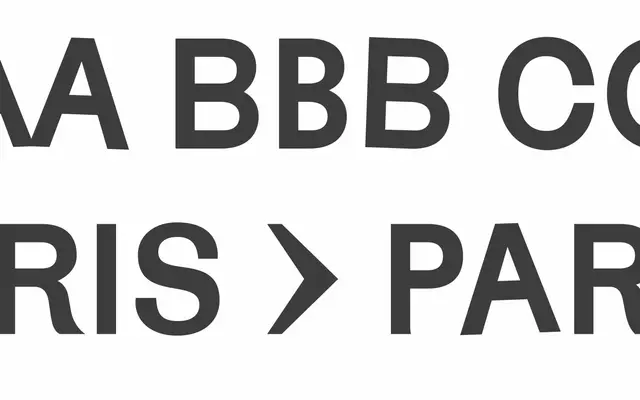
Karrik
Phantom Foundry · Jean-Baptiste Morizot, Lucas Le Bihan · 2020
An intentionally flawed grotesque designed for a ghost-themed magazine, built around the charm of forgotten early sans-serifs and deliberate optical miscorrections.
Designed by Jean-Baptiste Morizot and Lucas Le Bihan for Cercle magazine's 2020 ghost-themed issue, Karrik evokes abandoned places and discontinued electric station signage through wilful design flaws: uneven letter widths, heavy stem joins left uncorrected, and weight distribution that runs against conventional practice. A stylistic set (SS01) introduces chaotic alternate uppercase letters for added vernacular disorder. Released as a libre font through the Velvetyne foundry, it reads coherently at body size despite its display-oriented irregularities.
Karrik is deliberately modelled on early, clumsy grotesque sans-serifs, with intentional optical corrections omitted and uneven weight distribution to evoke forgotten vernacular type foundries.